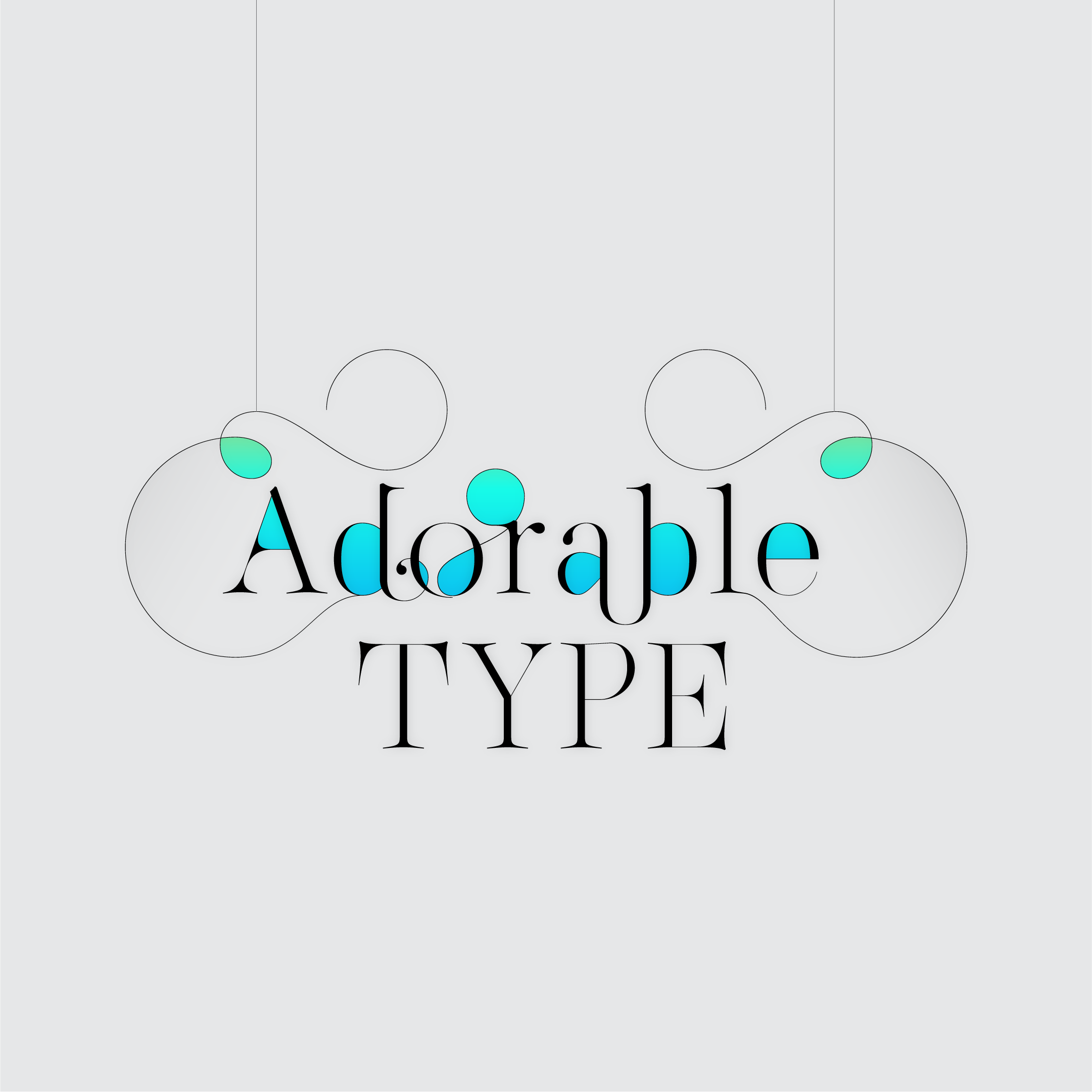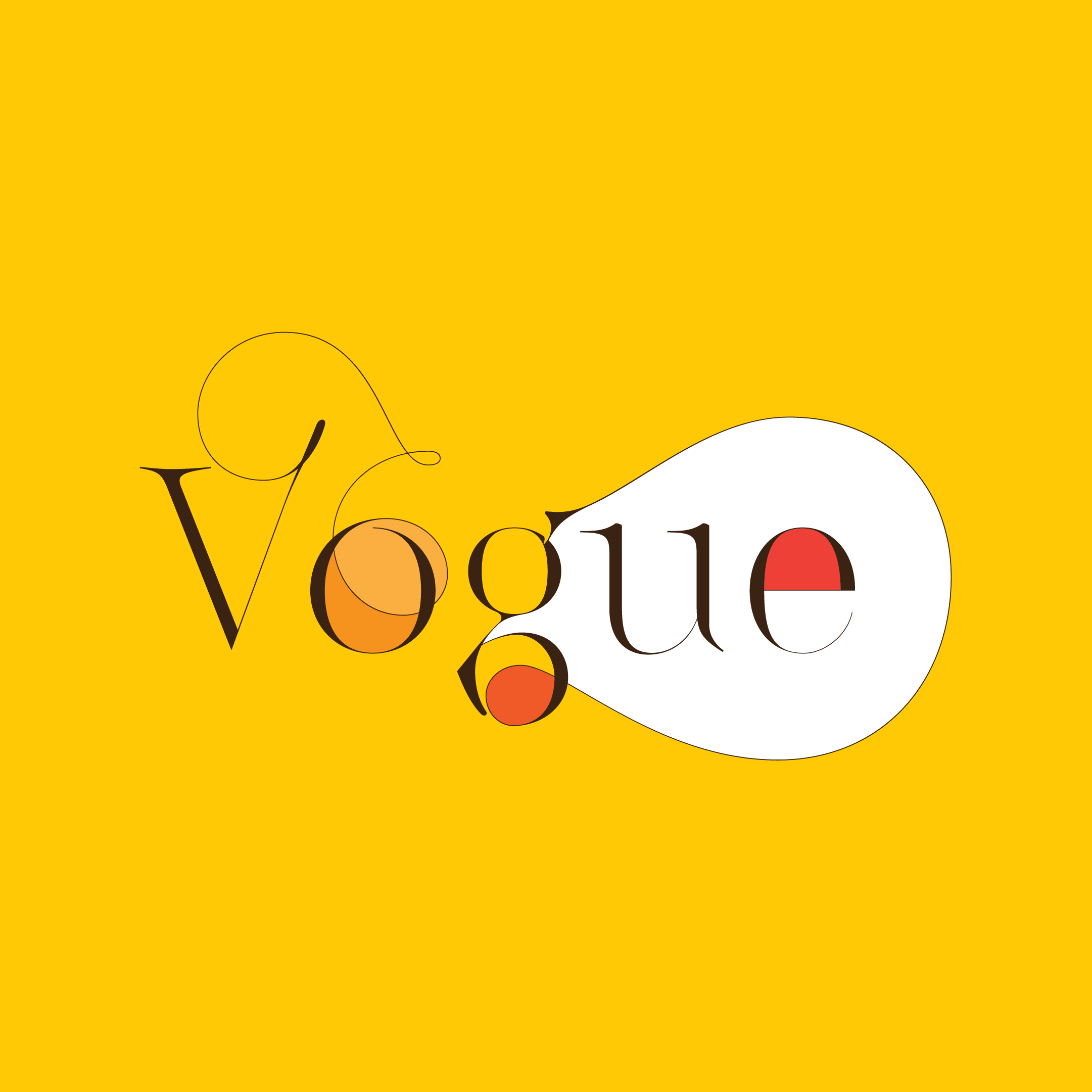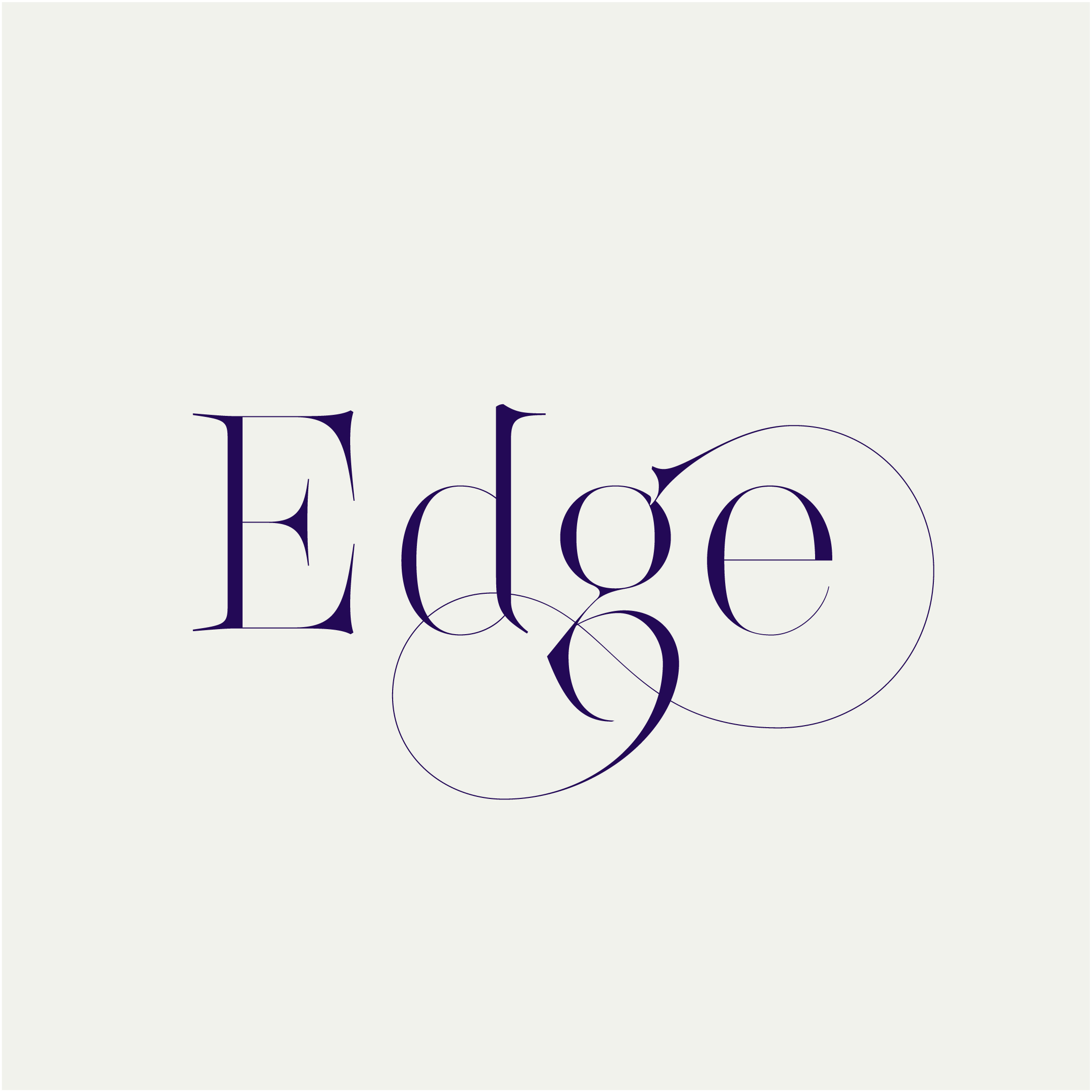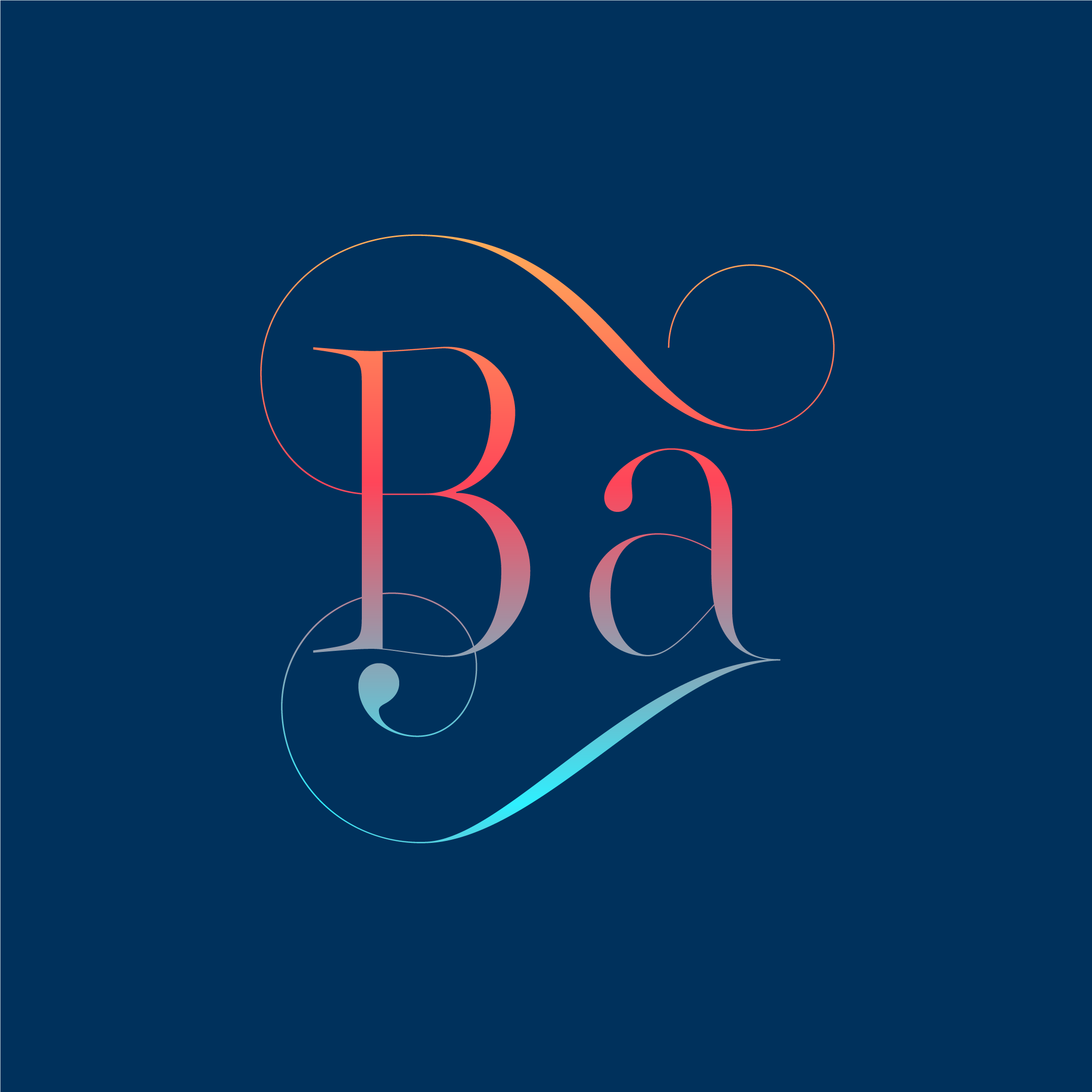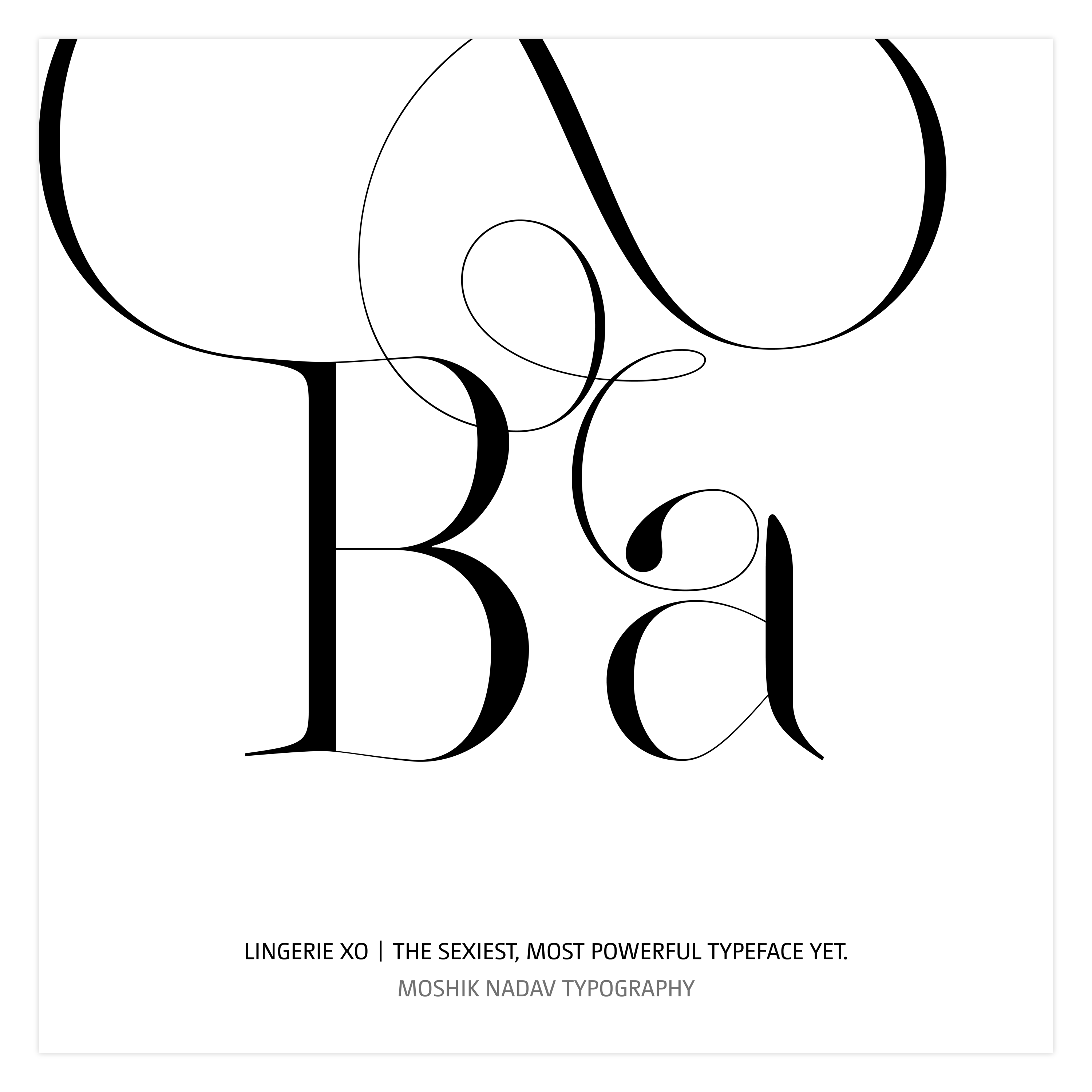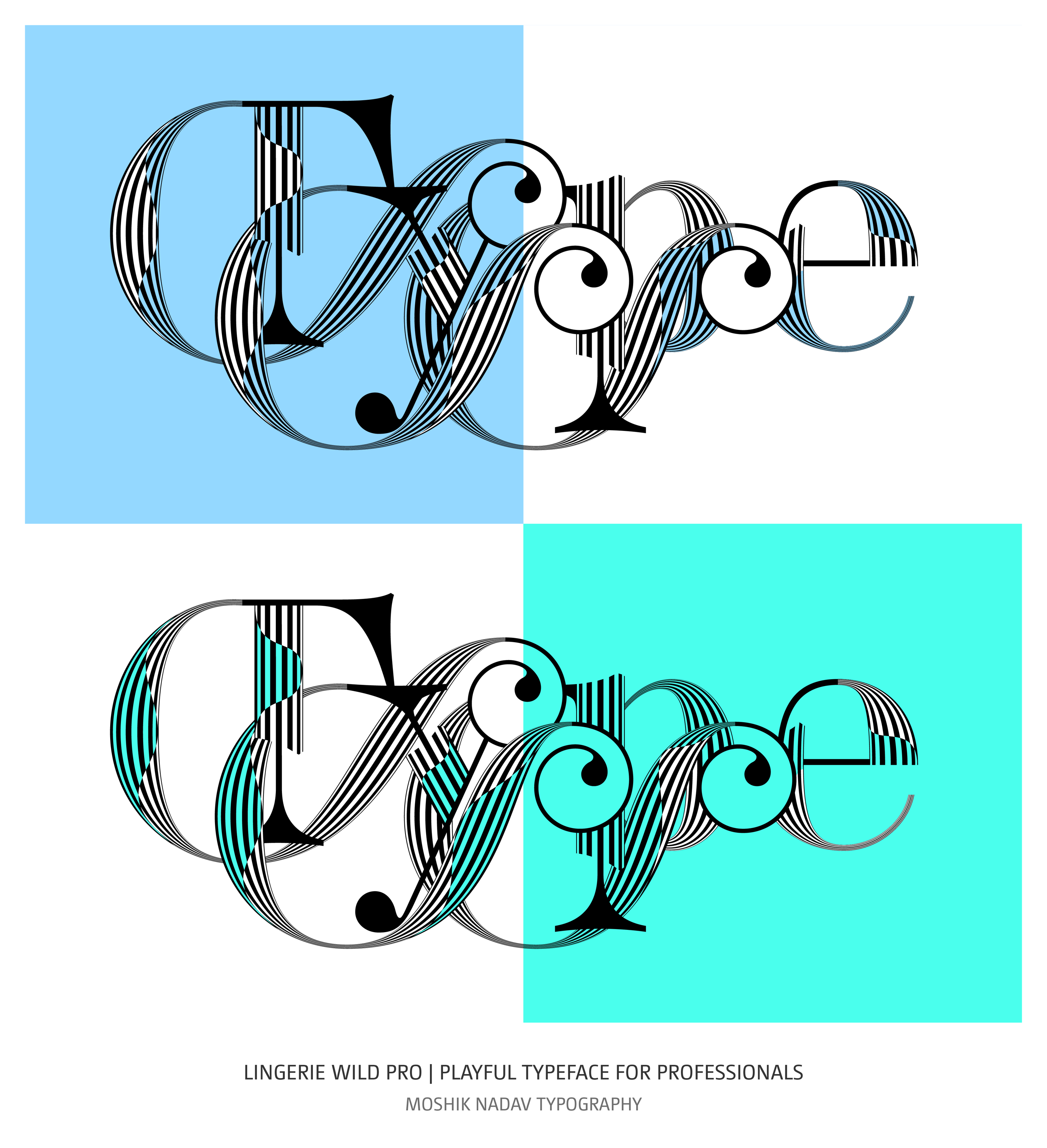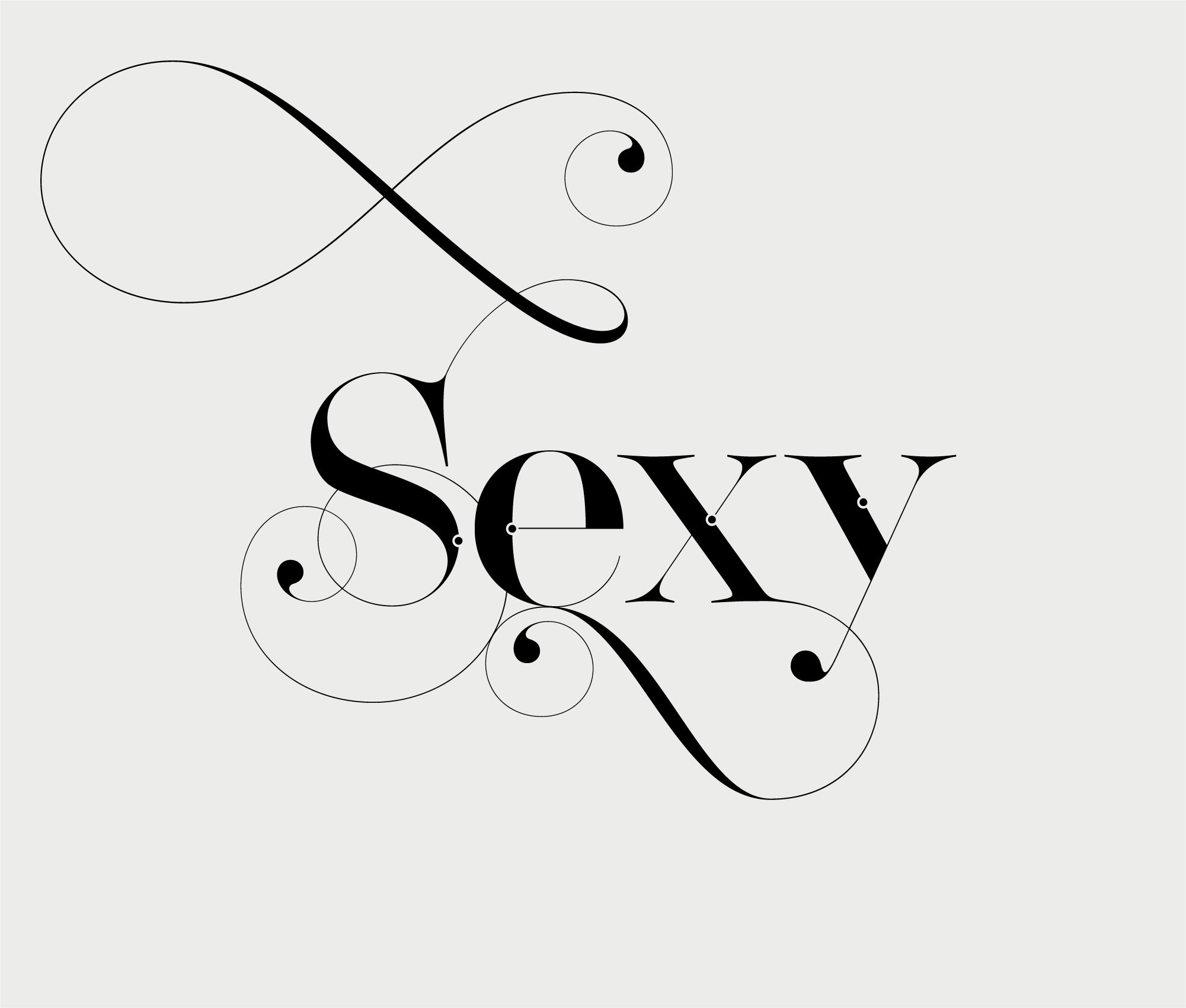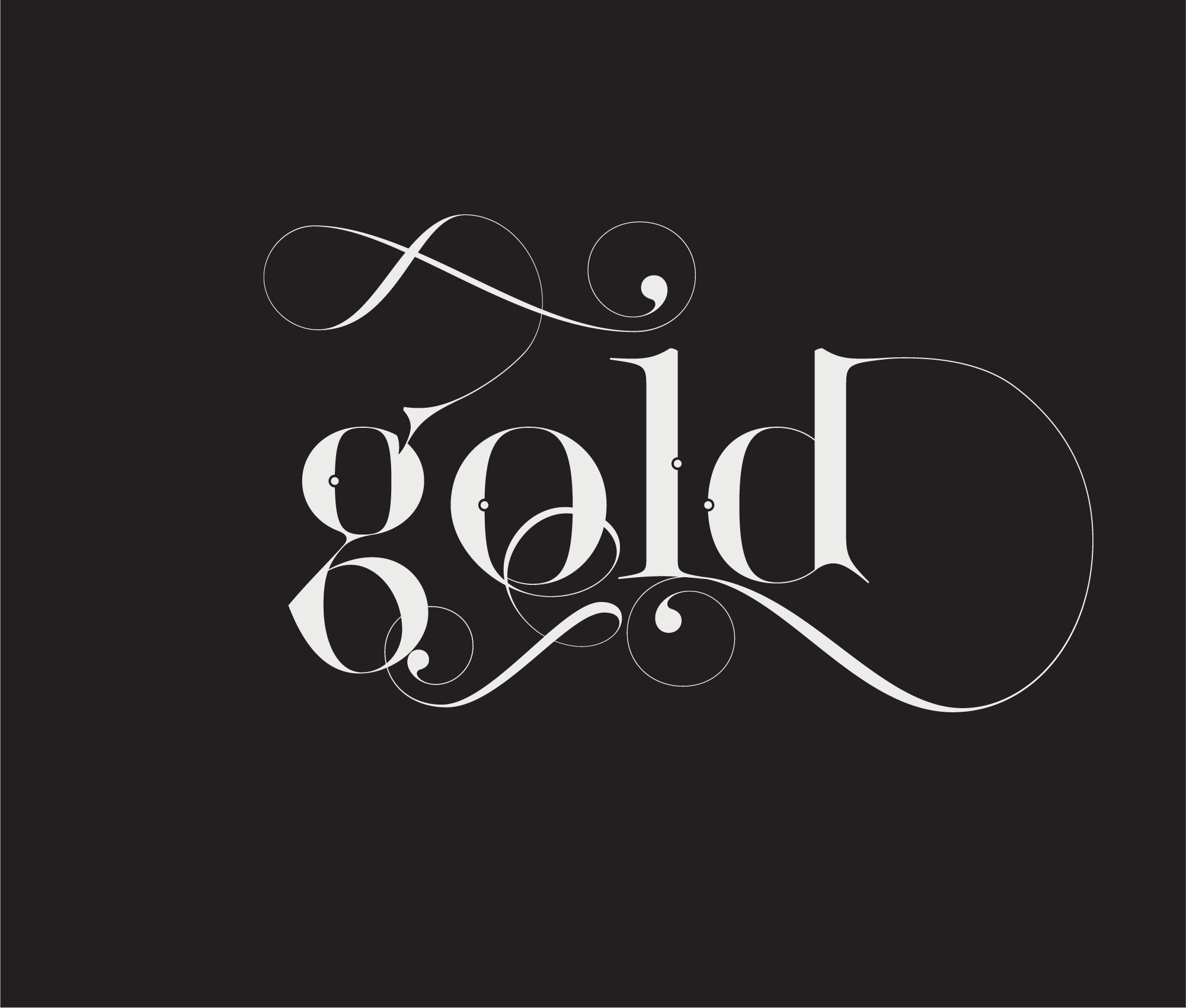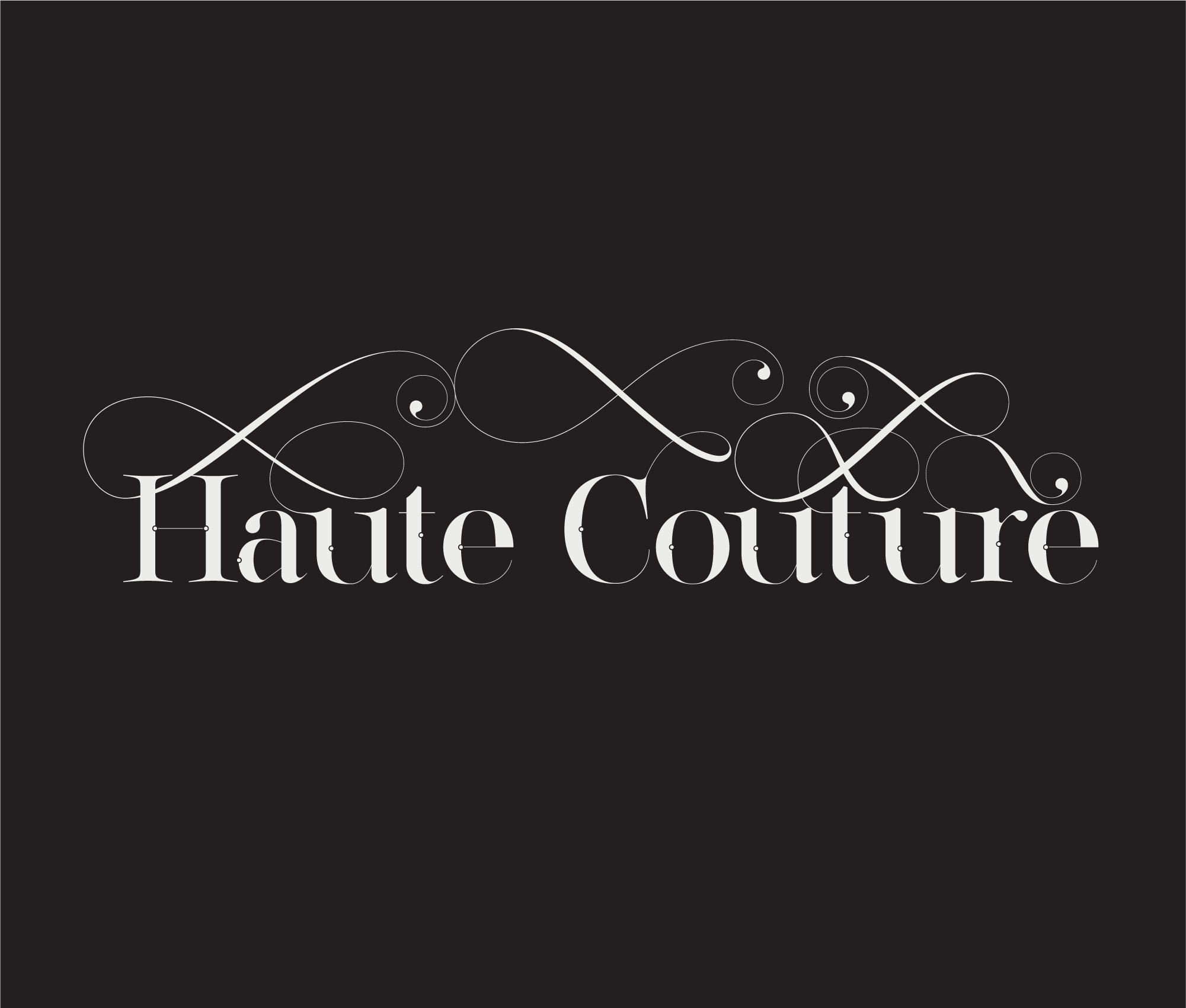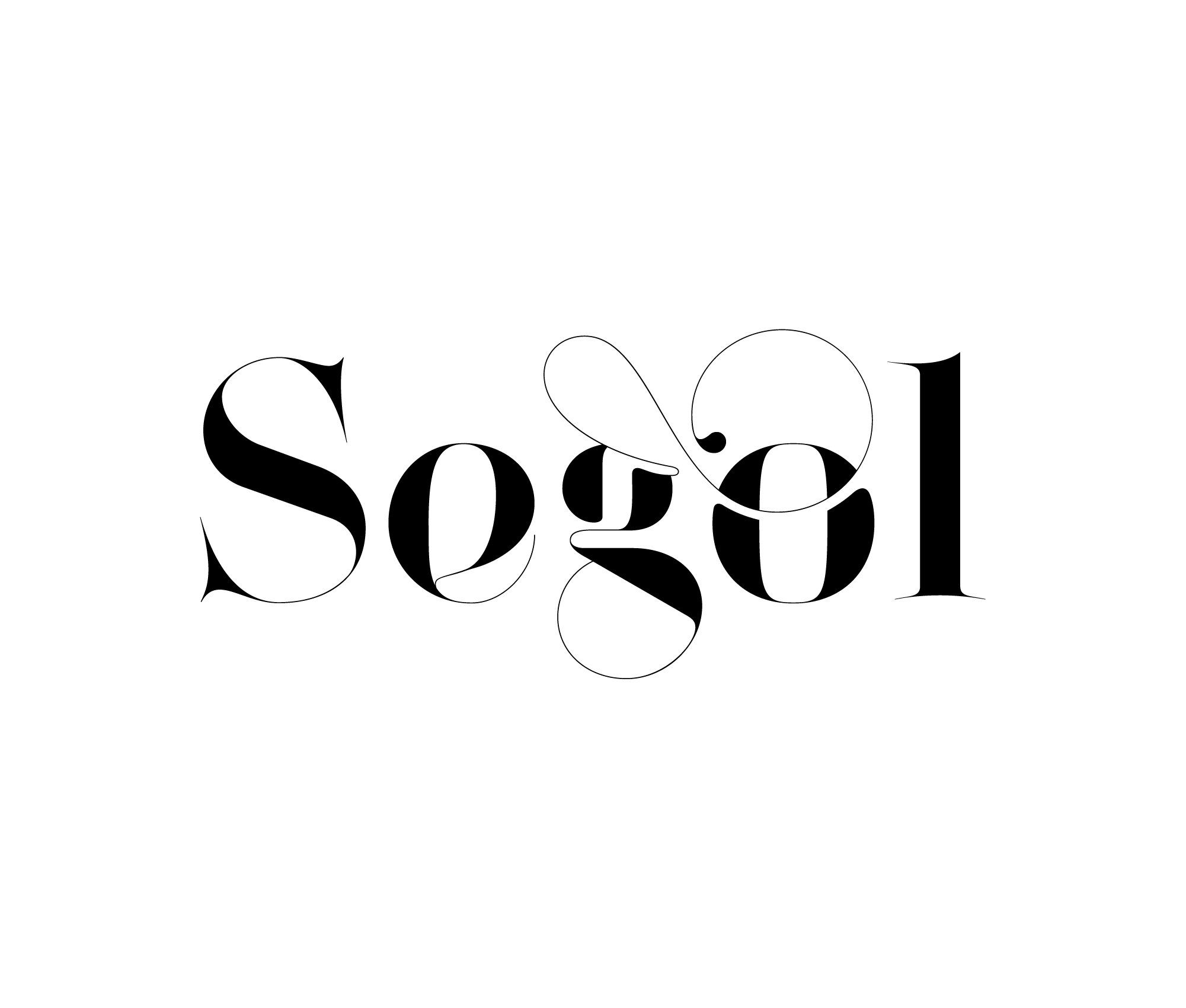
How Sexy Fonts Can Elevate Your Fashion Brand
What's in a font?
Well, as it turns out, it could be everything – from the success of your fashion brand to its entire identity.
A font is more than just a set of letters and numbers. In fact, it's an essential part of your brand's design language, and it can say a lot about your brand identity.
When it comes to fashion typography, sexy fonts help you create an alluring brand identity that stands out from the rest. Whether your brand is set to launch a new showcase or you're simply looking to refresh your current aesthetic, the font you choose can have a massive impact.
So, how exactly do sexy fonts take your fashion brand to the next level?
Made with Segol Typeface
1. Sexy Fonts Deliver an Air of Sophistication and Exclusivity
For starters, they help you create an air of sophistication and exclusivity. If you want your brand to be seen as high-end and luxurious, then using a sleek, stylish font is a must. After all, first impressions really count in the fashion world. Sometimes you only get one shot at making a good one.
Sexy fonts also help you tap into certain emotions and associations that can benefit your brand. For high-end fashion brands, you need to have a degree of exclusivity to generate excitement and desire. And what's more exclusive than using a font that's not widely available?
You're already ahead of the game when you use a sexy font from an independent typography house. People will perceive your brand as being forward-thinking and on-trend. Suddenly, you're not just another fashion label – you're a sophisticated trendsetter.
Lowercase q. Made with Lingerie Typeface. Explore More
2. Sexy Fonts Better Convey Emotion
When reading about Victoria's Secret latest releases or perusing through images from Dolce & Gabbana's latest show, there's no doubt that the typography used plays a crucial role in setting the tone.
Fashion is all about emotion. And the right font can help you tap into those emotions and really connect with your audience. For example, using a more curvaceous font can give off a sensual vibe, while a sleek, modern font evokes feelings of confidence and power.
Of course, it's vital to use sexy fonts in the right way. You don't want to go overboard and end up with a brand identity that looks cheap or tacky. You want a typeface design that conveys the right emotional connotations without appearing desperate or over-the-top.
Custom logotype for Lou & Grey. Designed by Moshik Nadav.
3. You Can Use Sexy Fonts to Create Sexy Logos
Given that most brands in the fashion industry incorporate typography into their logo designs, choosing a font that complements the rest of your branding is critical.
A well-designed logo helps you to create a strong, instantly recognizable brand identity. And using a sexy font is one way to ensure your logo design stands out from the crowd. The most iconic logos of the haute couture brands all use fonts that convey a sense of style and sophistication – so there's no reason your brand can't do the same.
Segol Typeface lowercase g alternate glyphs. Explore More
4. Sexy Typefaces Draw Attention and Increase Memorability in Fashion Publications
When you look at Vogue fonts and other fashion magazine fonts, you'll notice that they often use eye-catching, decorative typefaces to really make an impact.
The layout design of fashion magazines is all about capturing attention and generating excitement, and you can't do that with run-of-the-mill fonts. You need attention-grabbing fonts that make a statement.
Sexy fonts are the perfect way to add visual interest to your fashion magazine. They help you draw in the reader's attention and increase the overall memorability of your articles. Remember, fashion magazines are image-heavy, so you must ensure the text doesn't get lost in the mix.
Plus, using a unique font is one way to ensure your magazine stands out from all other fashion publications. If you want to be remembered, you need to stand out – and using a sexy fashion typeface is one way to do just that.
So, having covered some of the main reasons you should use sexy fonts for your fashion brand; let's look at how to choose the right typeface for your needs.
Segol Typeface in use by Mission Magazine. Explore More
Lingerie XO Typeface featured in IDN Magazine. Explore More
Lingerie Typeface on the cover of Vogue Magazine. Explore More
Choosing a Sexy Font for Your Fashion Brand or Publication
When choosing a font, you need to consider a few key factors. First of all, think about the overall tone and feel you want to convey with your typography. Do you want something sensual and feminine? Or strong, confident, and powerful?
It would be best if you also thought about customization possibilities. For instance, how many glyphs does the font include? Are there multiple weights, styles, and calligraphy options? Can you add/customize ligatures and swashes?